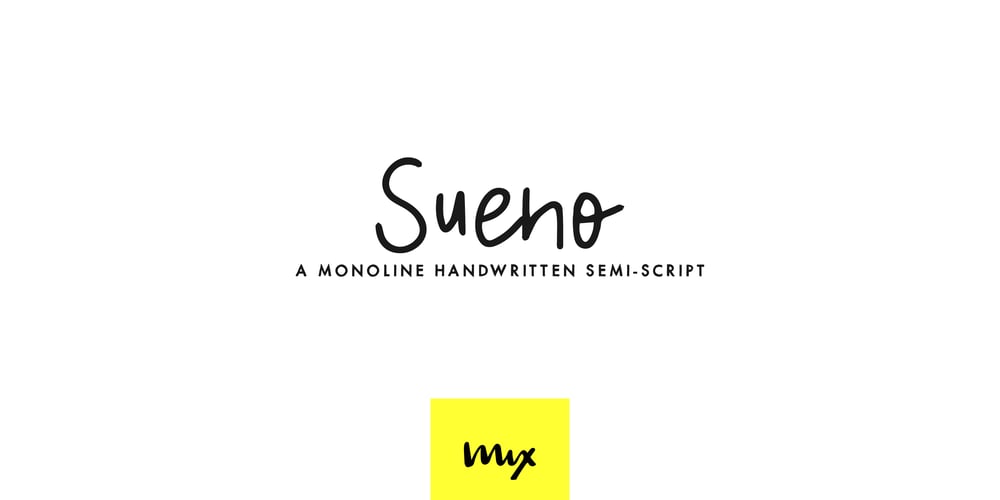
Sueno Font Family was designed by Mikko Sumulong and published by Mix Fonts. Sueno contains 1 styles and family package options. Looking for a font that’s chic, stylish, and oh-so-slightly handwritten? Look no further than MIX SUENO! This monoline semi-script was crafted with care using an iPad Pro and Apple Pencil, and is the perfect addition to any design project. Whether you’re creating invitations, social media graphics, or just sprucing up your website, MIX SUENO will bring a touch of sophistication and personality to your work. So don’t hesitate – give MIX SUENO a try today!